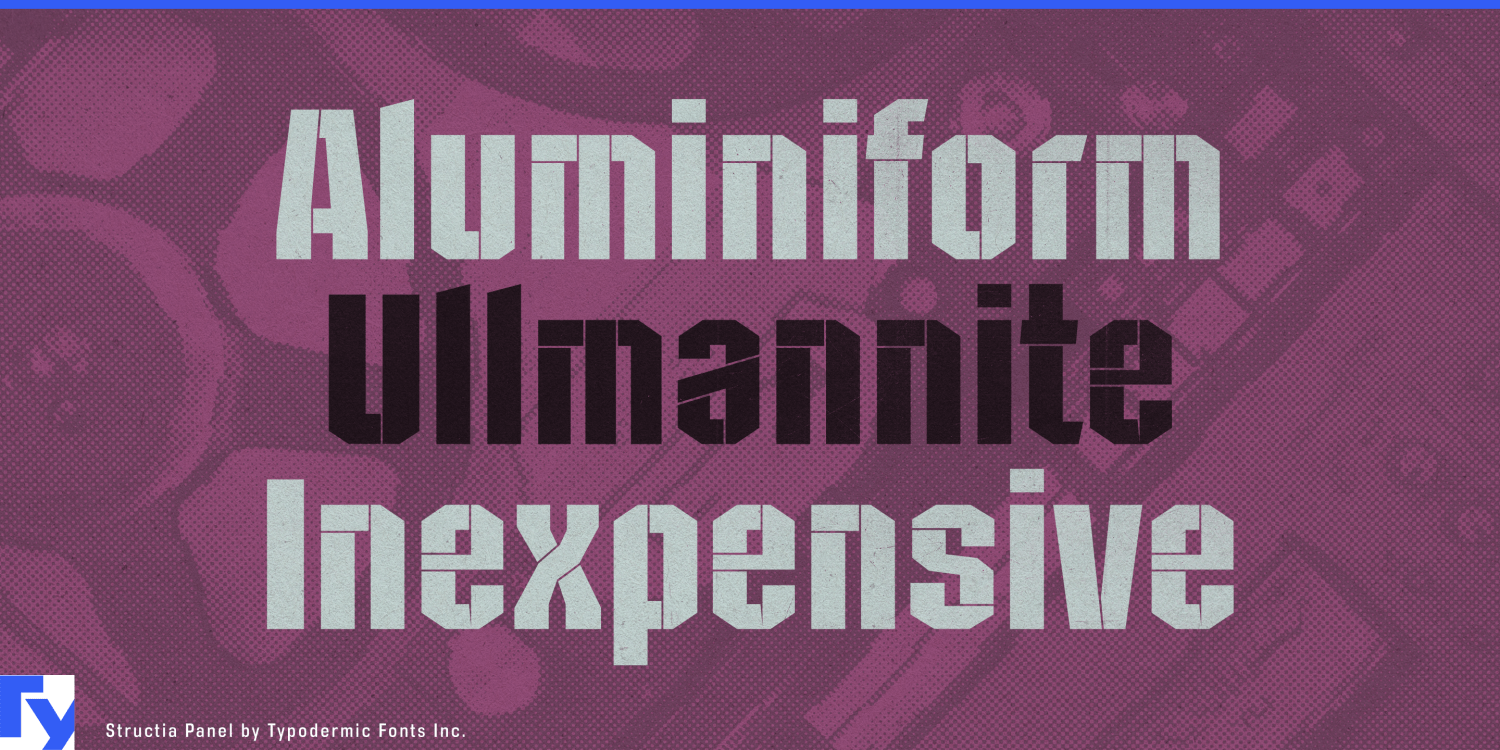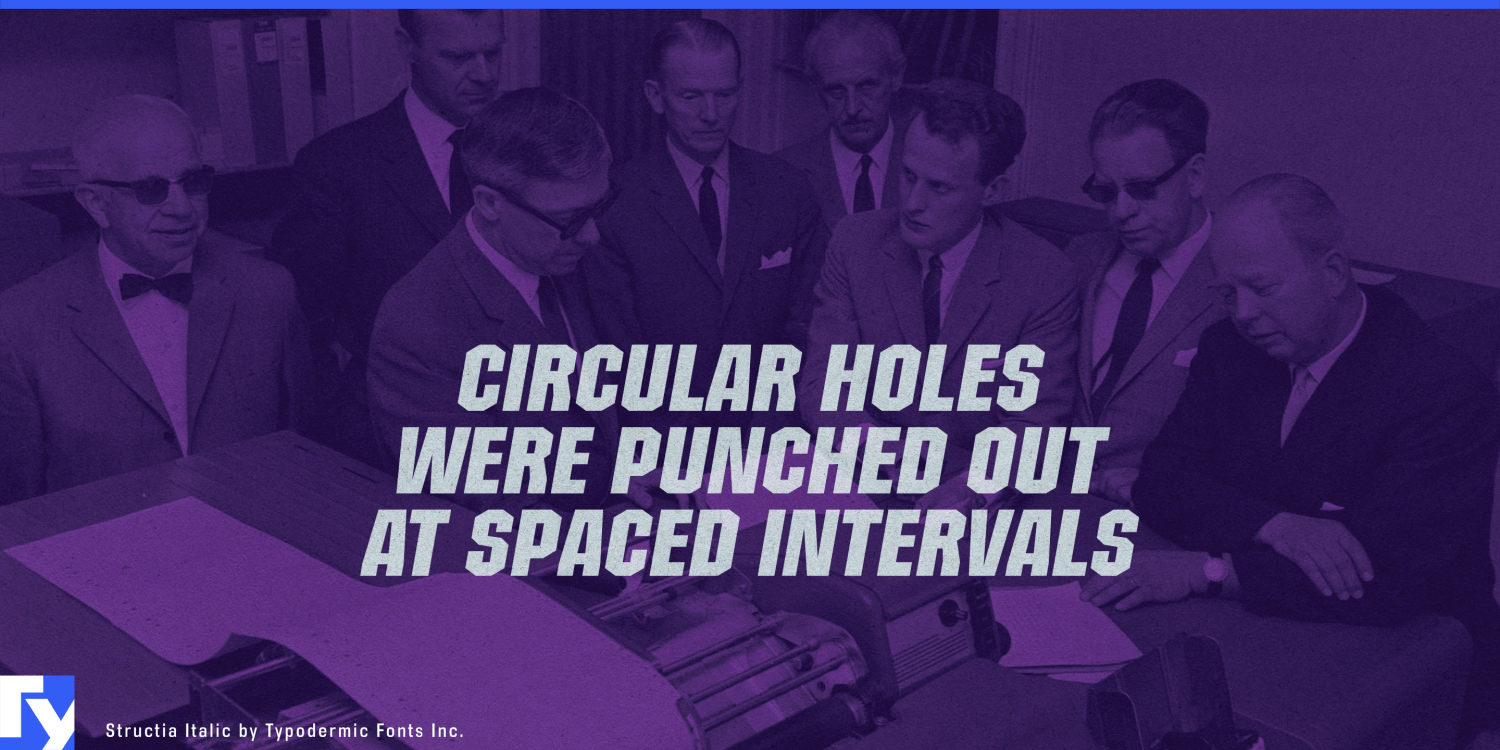
About Structia
In a world where communication often feels ephemeral, Structia emerges as a typeface that demands permanence. Drawing inspiration from the uncompromising ethos of brutalist architecture, this font family carves out its own space with unapologetic precision…